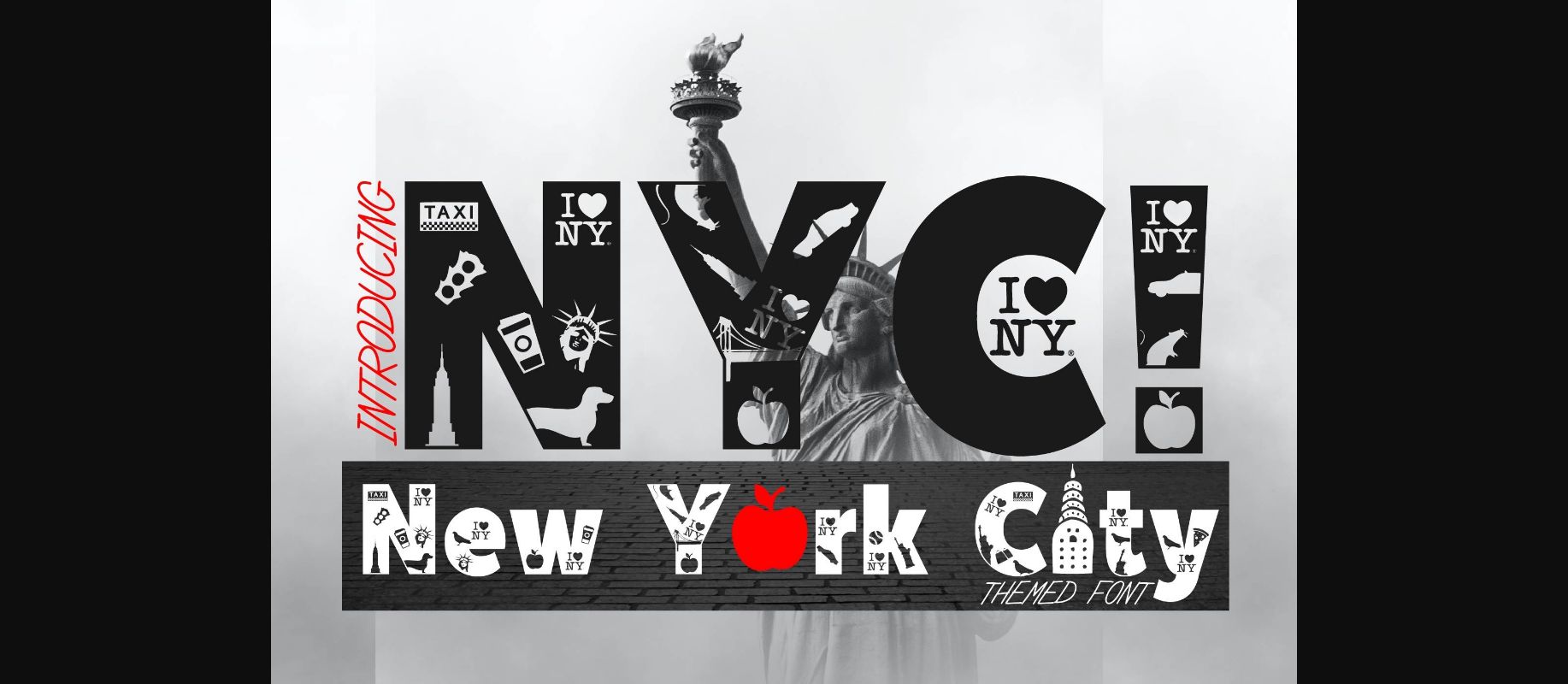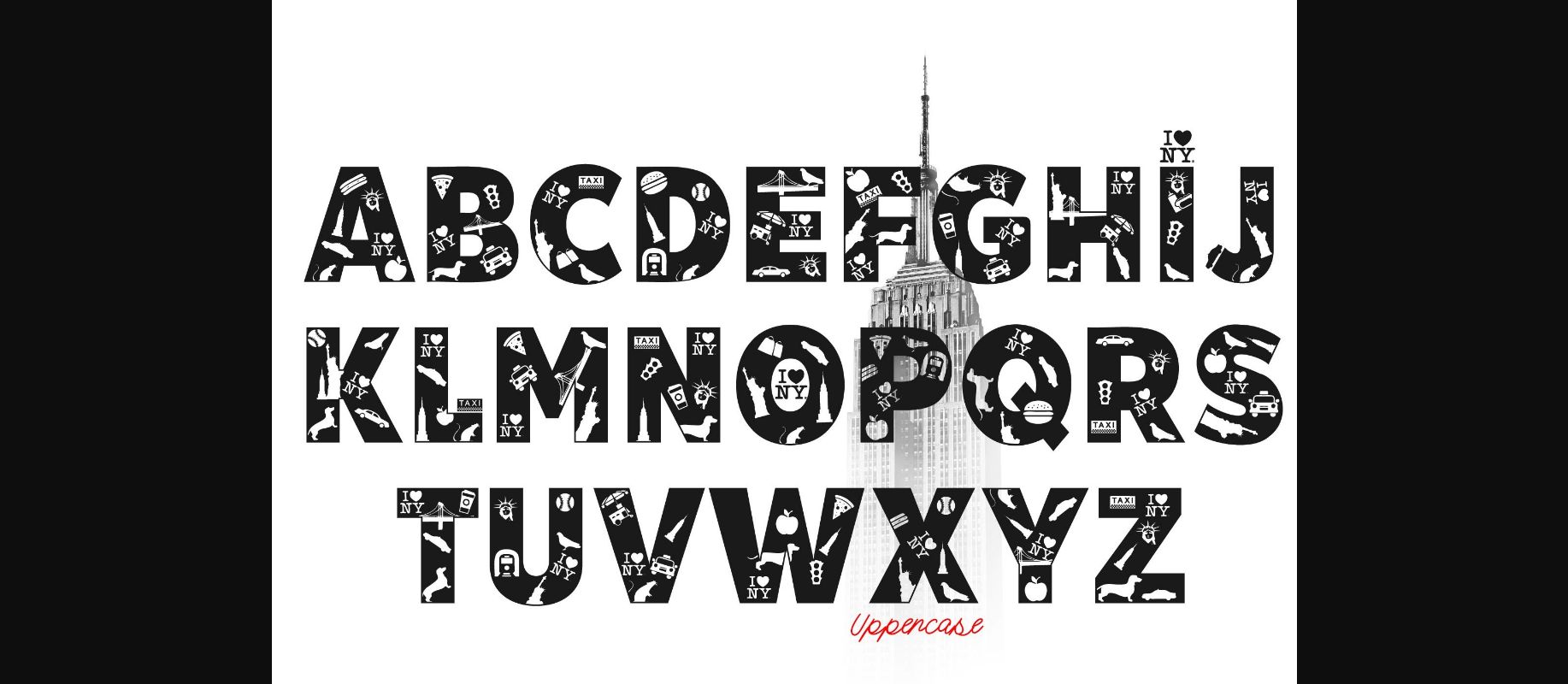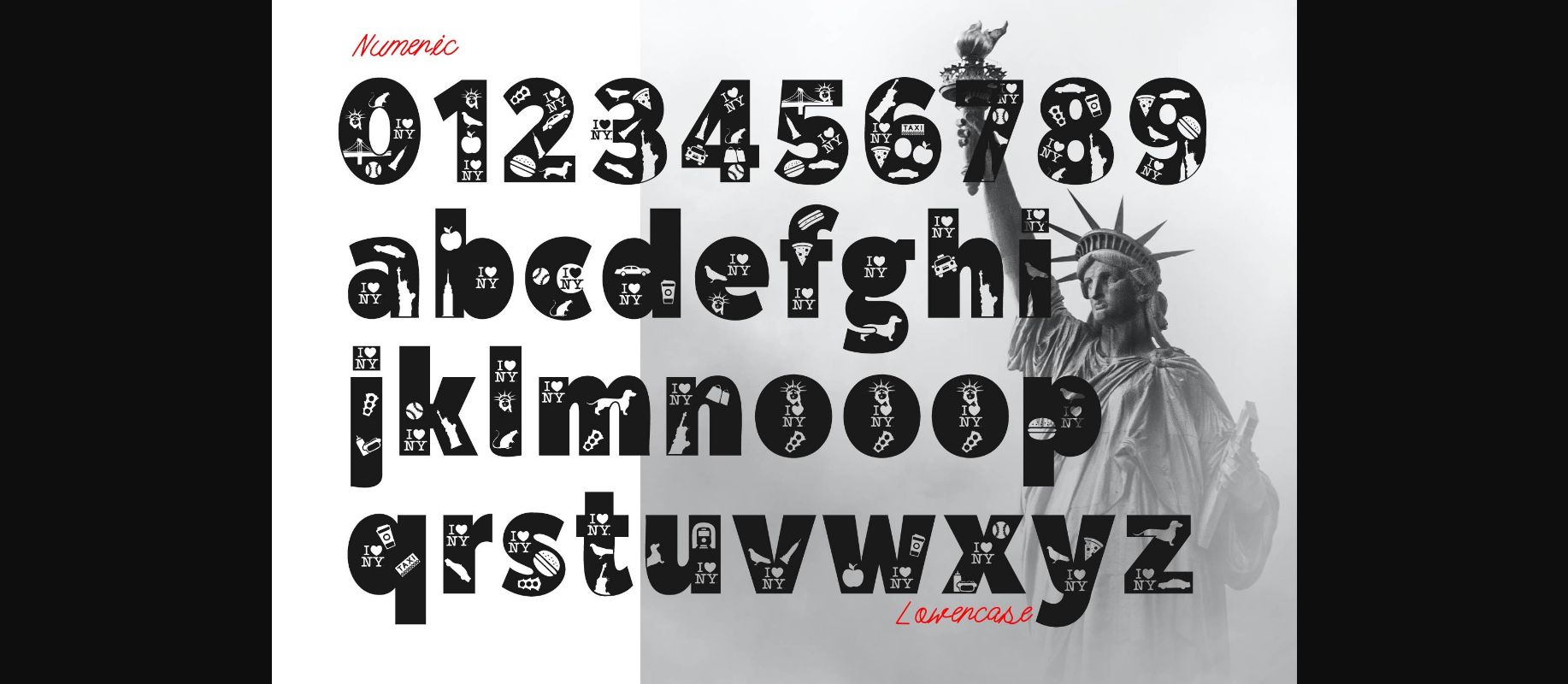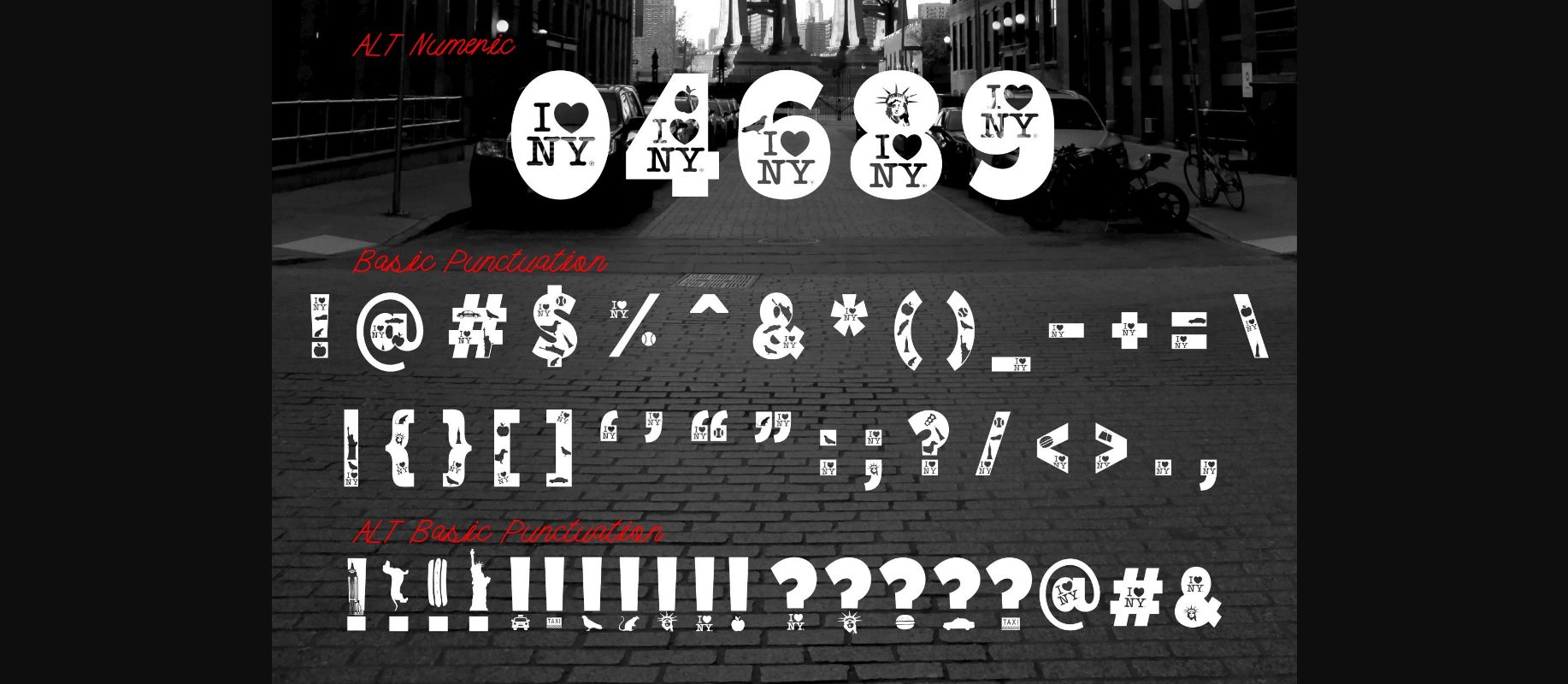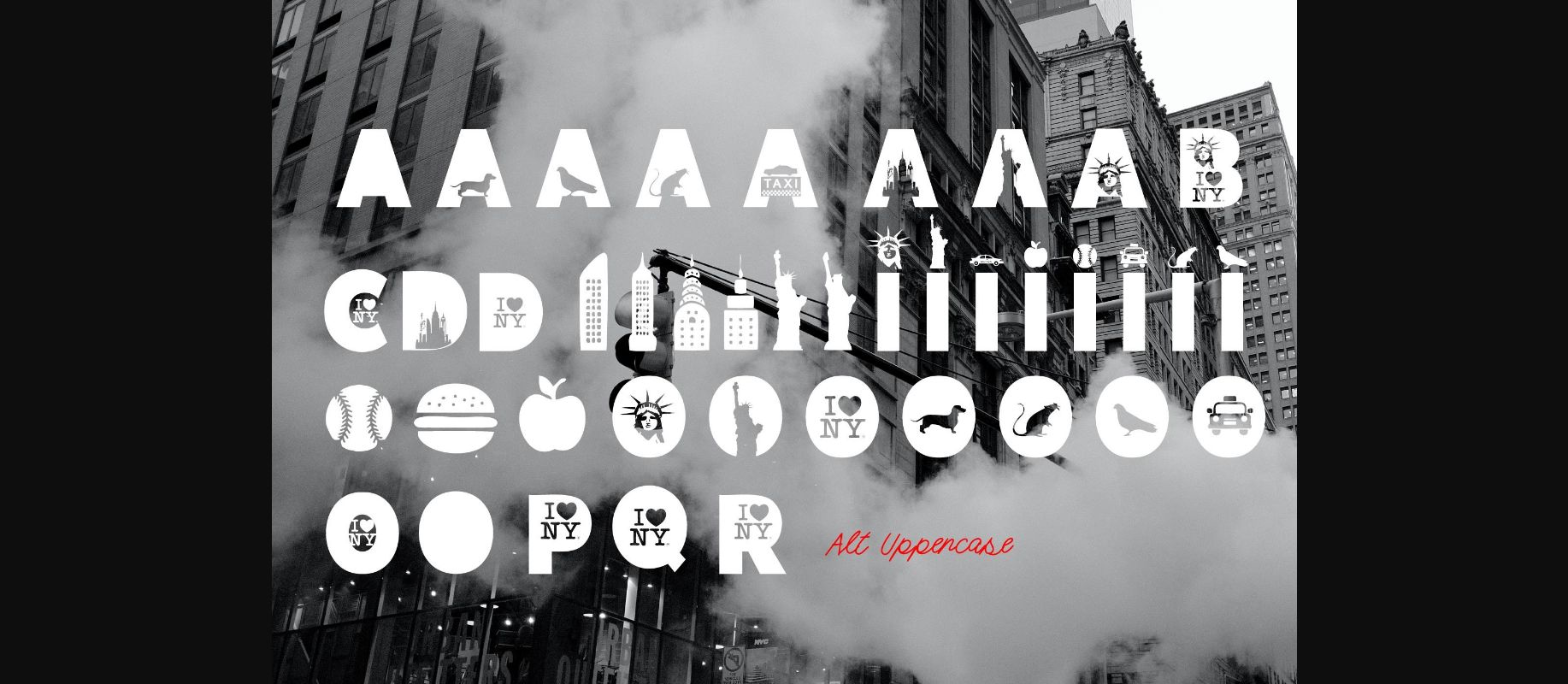
About Nyc Font
NYC! is a bold and incredibly cool decorative font. Whether you’re using it for a logo, or website, or creating something totally unique, this versatile typeface will give your project just the right amount of style. Have fun with this beautiful font and explore its endless variations.